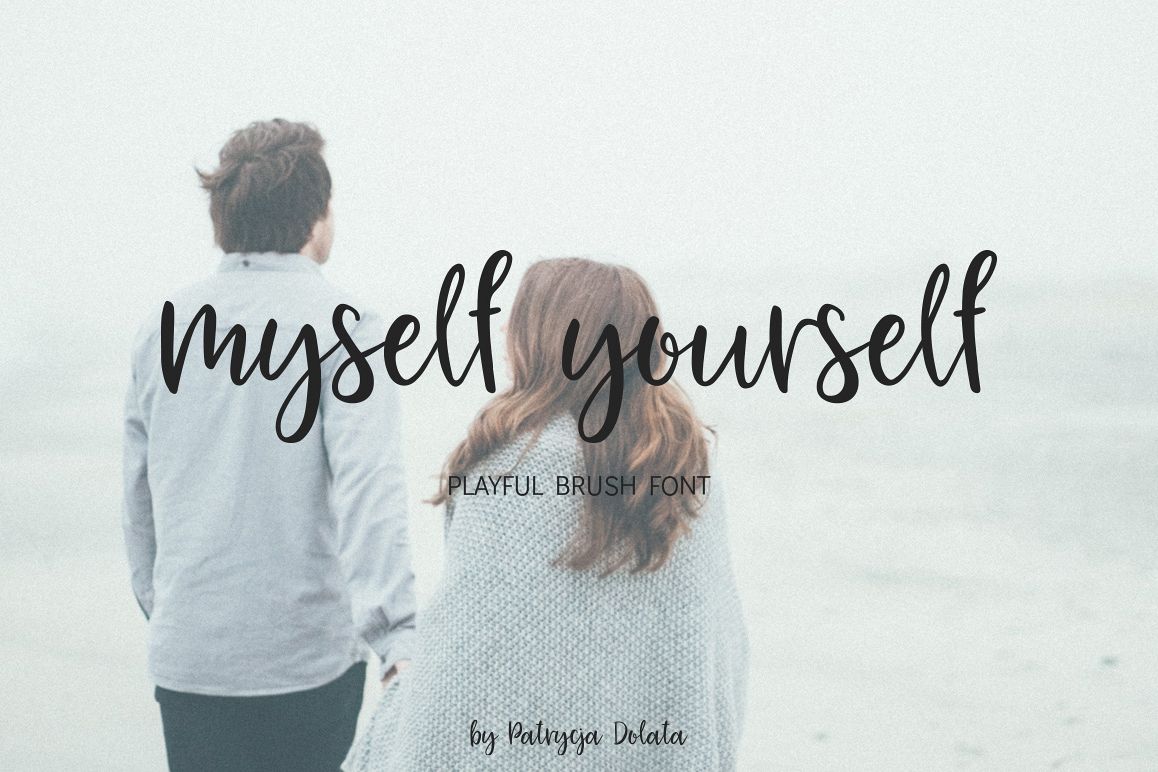
Myself Yourself
Bouncy, playful script font.
Perfect for greeting cards, branding projects, homeware designs, stationery design, social media, packaging, magazine layouts, prints and more!